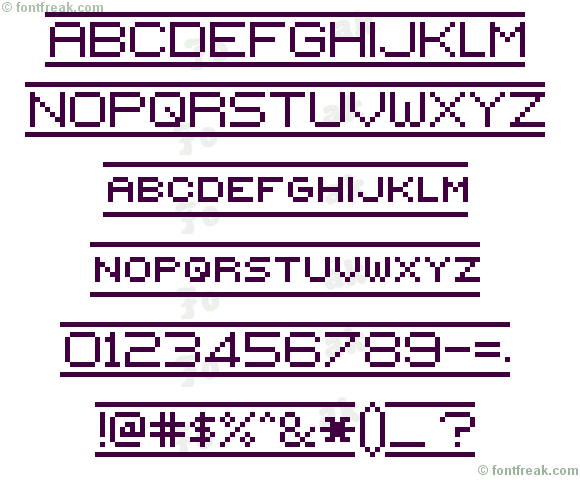
{PixelFlag} Regular
About {PixelFlag} Regular
{PixelFlag} Regular is a distinctive display font designed by Andrew McCluskey, showcasing a unique pixelated aesthetic that captures the retro charm of early digital typography. This font falls into the decorative category, making it an ideal choice for projects that seek to evoke nostalgia or a playful vibe. The visual characteristics of {PixelFlag} Regular include a consistent stroke weight and minimal contrast, which enhance its readability while maintaining an unmistakable pixelated style. The spacing is thoughtfully designed to balance the characters, ensuring that text remains legible even at smaller sizes.
This font is particularly well-suited for a variety of creative applications. Graphic designers can effectively use {PixelFlag} Regular for video game design, where its retro feel aligns perfectly with the theme. Additionally, it makes for eye-catching headlines on movie posters, especially for films that aim to evoke a sense of nostalgia or adventure. Small business owners in the tech or gaming industry can use this font on promotional materials, while content creators may find it useful for engaging social media graphics. The unique style also suits merchandise design, such as T-shirts and stickers, appealing to audiences who appreciate a quirky, retro touch.
The target audience for {PixelFlag} Regular includes graphic designers, small business owners, and content creators who seek an engaging and distinctive typeface to enhance their projects. This font stands out due to its unique blend of retro charm and modern usability, making it a versatile addition to any designer's toolkit. With its freeware license, {PixelFlag} Regular font free download allows anyone to incorporate this eye-catching typeface into their work, making it accessible for both personal and commercial projects.